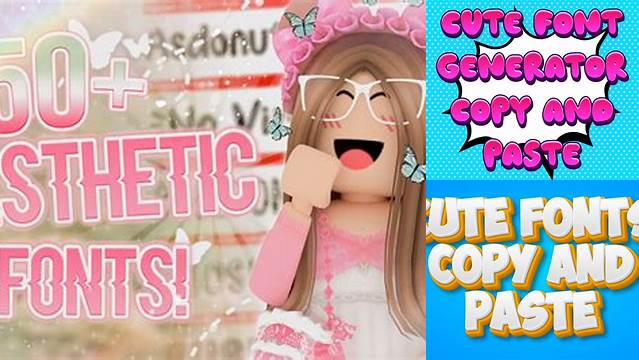
Cute Fonts: Copy & Paste Guide For Roblox
Hey guys! Ever wanted to spice up your Roblox game, profile, or even just your chat messages with some super cute fonts? Well, you've come to the right place! In this guide, we're going to dive deep into the world of cute fonts that you can easily copy and paste into Roblox. We'll explore different types of fonts, how to use them, and where to find them. Get ready to add some personality and flair to your Roblox experience!
What are Cute Fonts and Why Use Them in Roblox?
Let's start with the basics: What exactly do we mean by "cute fonts"? Generally, these are fonts that have a playful, whimsical, or adorable aesthetic. Think bubbly letters, cursive styles, fonts with hearts or stars, or anything that just makes you smile. Using cute fonts in Roblox can be a fantastic way to:
- Express Yourself: Roblox is all about creativity, and fonts are another way to showcase your unique style. A cute font can perfectly match your avatar's vibe, your game's theme, or your personal brand.
- Make Your Game Stand Out: If you're a Roblox developer, using eye-catching fonts in your game's UI, signs, or dialogues can significantly improve the player experience. A well-chosen font can make your game feel more polished and professional.
- Enhance Your Profile: Your Roblox profile is your online identity. Using a cute font in your profile description or status can make you more memorable and attract like-minded players.
- Spice Up Your Chat: Let's be honest, the default Roblox font can get a little boring. Injecting some cuteness into your chat messages can make your interactions more fun and engaging. Imagine sending a message with a bubbly font full of hearts – how adorable is that?
But why not just use the standard fonts Roblox provides? Well, the default options are functional, but they lack that extra oomph. Cute fonts allow for greater creative expression and can set your content apart. It's like choosing the perfect outfit for your avatar – the font is the final accessory that completes the look!
Where to Find Cute Fonts for Roblox
Okay, so you're sold on the idea of cute fonts. But where do you actually find them? Don't worry, the internet is a treasure trove of font resources! Here are some popular options:
Online Font Generators
These are websites specifically designed to convert your text into various stylish fonts. They often have a wide range of cute options, from elegant cursive to playful bubble letters. The best part? They usually allow you to simply copy and paste the generated text directly into Roblox. Some popular font generators include:
- LingoJam: LingoJam is a user-friendly website with a variety of font styles, including many cute and decorative options. You just type your text, and the site instantly generates it in different fonts. You can then easily copy the font you like and paste it into Roblox.
- Cool Fonts Online: This website offers a similar service, with a focus on stylish and unique fonts. It's a great place to find fonts that are a little different from the norm, adding extra flair to your Roblox content. Cool Fonts Online has a clean interface and easy-to-use tools for generating and copying fonts.
- Fancy Text Generator: As the name suggests, this generator is all about creating fancy and eye-catching text. You'll find plenty of cute options here, as well as fonts that are perfect for adding a touch of elegance or drama. The site also offers various symbols and characters that you can incorporate into your text for extra personalization.
When using these generators, remember that Roblox has some limitations on the characters it supports. You might find that some of the more elaborate fonts don't display perfectly in the game. It's always a good idea to test your font in Roblox to make sure it looks the way you want it to.
Unicode Character Websites
Another way to access cute fonts for Roblox is through Unicode character websites. Unicode is a universal character encoding standard that includes a vast array of symbols and characters, many of which can be used to create font-like effects. These websites allow you to browse and copy these special characters.
- Unicode Character Table: This comprehensive resource allows you to browse the entire Unicode character set. While it might seem daunting at first, you can use the search function to find specific symbols or characters that you like. For example, searching for "stars" or "hearts" will bring up a variety of cute symbols that you can copy and paste into your Roblox text.
- CopyPasteCharacter: This website is specifically designed to make it easy to copy and paste special characters. It has a user-friendly interface and categorizes characters by type, making it easy to find what you're looking for. You'll find plenty of cute symbols here, as well as characters from different alphabets that can be used to create unique font effects.
So there you have it, guys! A comprehensive guide to using cute fonts in Roblox. From finding the perfect font to copying and pasting it into your game or profile, you now have the knowledge and tools to add some serious personality to your Roblox experience. Remember to experiment, have fun, and let your creativity shine! Cute fonts are a fantastic way to express yourself and make your content stand out in the Roblox universe. Go ahead, give it a try, and let your cute side shine through!